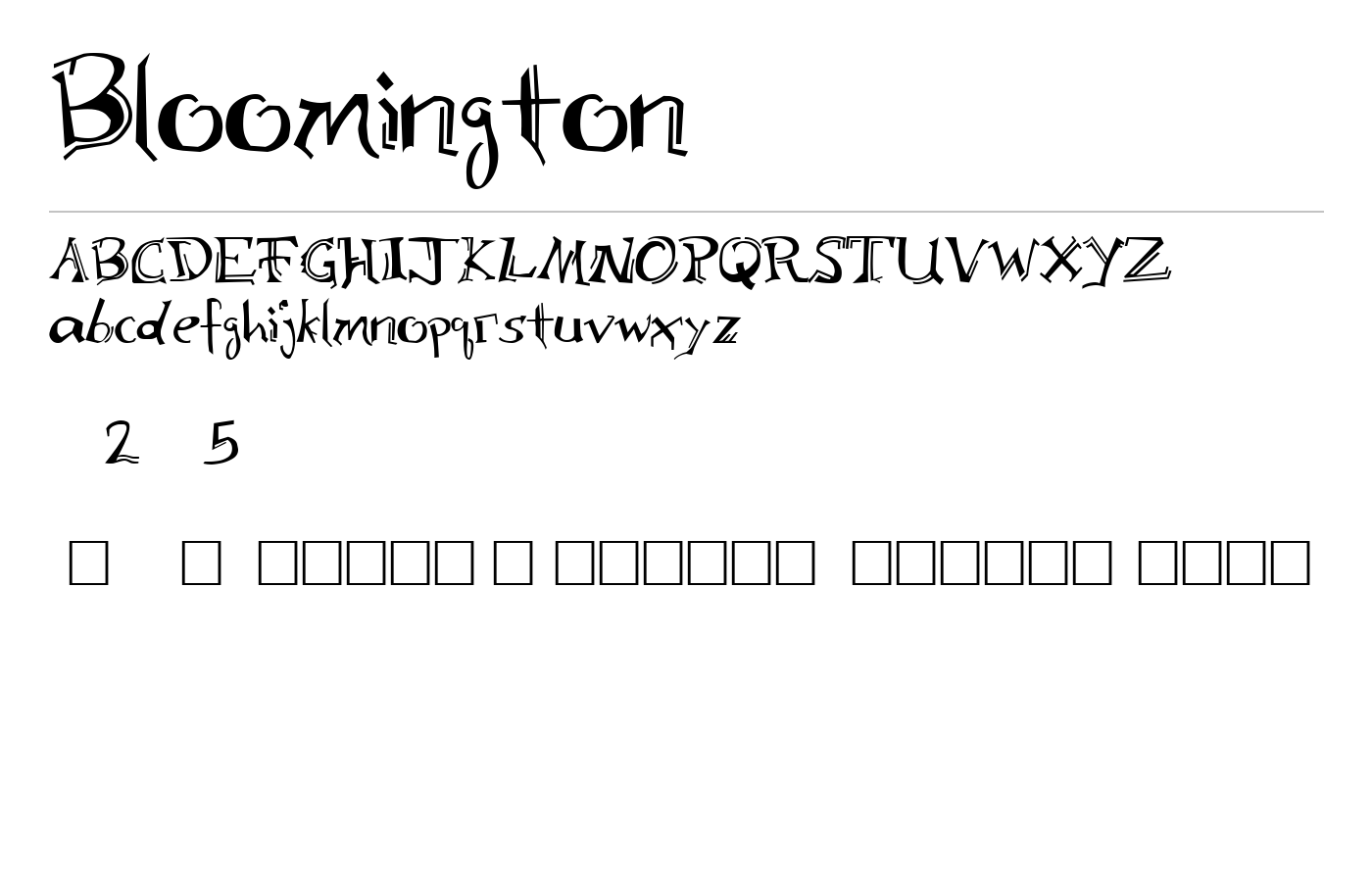
Bloomington is a quirky, hand-drawn serif font with an artistic and slightly gothic charm, featuring irregular strokes and unique letter shapes that create a playful yet mysterious vibe. Its distinctive character makes it ideal for creative projects, such as logos, posters, and invitations, where a bold and unconventional style is desired. This font works best in display settings where its unique personality can truly stand out.
Bloomington Font